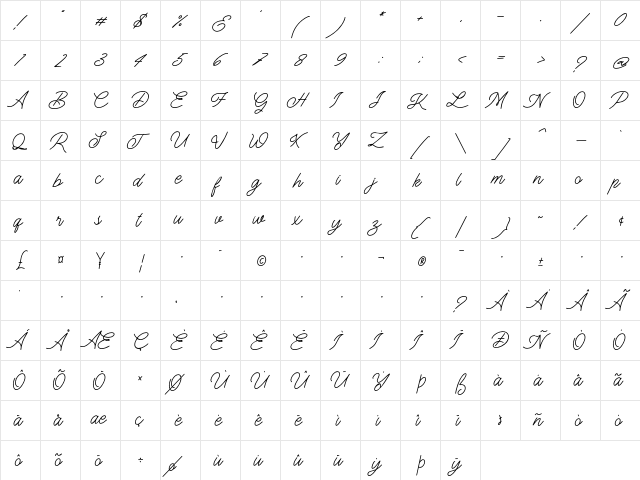
The Gallery Regular
Design Context for The Gallery Typeface
The Gallery is a composed and adaptable typeface that performs quietly and consistently across a wide range of design contexts.